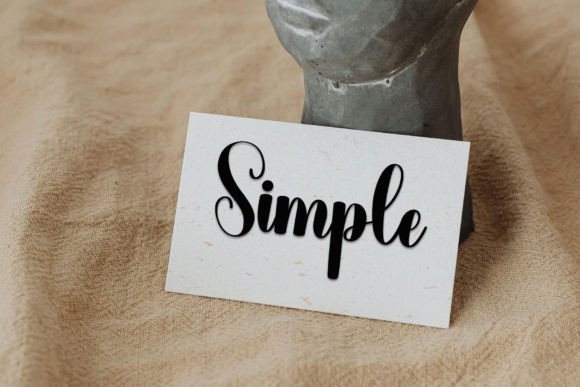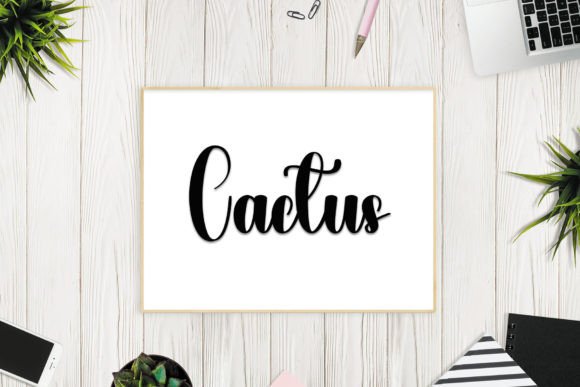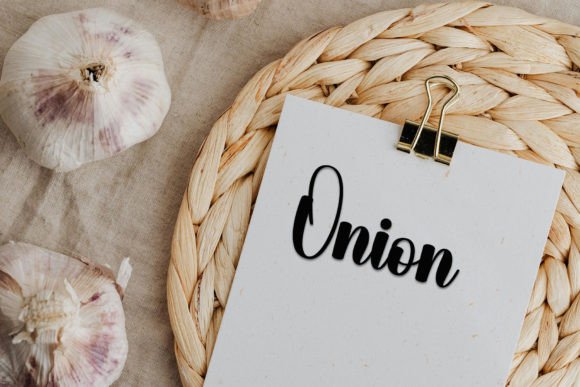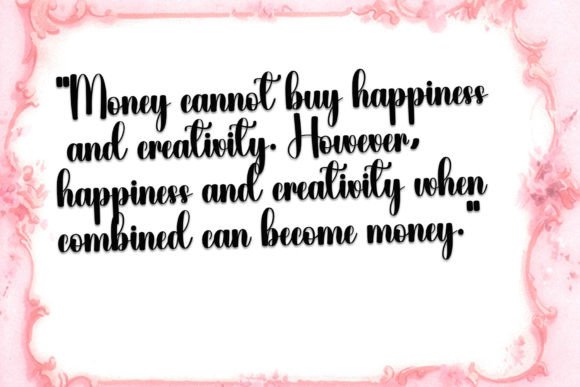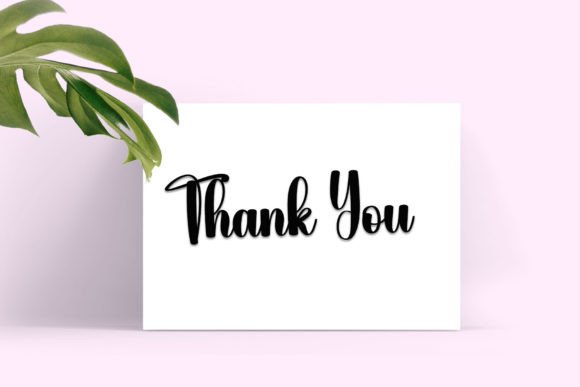
Introducing Already Font: Elevate Your Designs with Timeless Elegance
In the world of typography, few fonts manage to capture the essence of both modernity and classic sophistication. Already Font is one such remarkable typeface that seamlessly blends contemporary flair with the elegance of timeless calligraphy. If you’re a designer, crafter, or simply someone who appreciates the art of beautiful lettering, Already Font is sure to become an indispensable part of your creative arsenal.
The Inspiration Behind Already Font
Already Font draws its inspiration from the classic calligraphy of the past, yet it presents itself with a distinctly modern twist. This handwritten font is not just a collection of letters; it’s an expression of artistry and refinement. The creator of Already Font has meticulously crafted each character to exude a sense of impeccable form and fluidity, reminiscent of the finest calligraphic traditions.
Key Features of Already Font
- Trendy yet Timeless: Already Font strikes the perfect balance between being trendy and timeless. Its contemporary atmosphere makes it highly suitable for modern design projects, while its classic undertones ensure it remains relevant for years to come.
- Elegance and Class: The font’s design is characterized by elegant strokes and a sophisticated demeanor. It adds a touch of class to any project, making it ideal for designs that require a level of refinement.
- Versatility: Already Font is incredibly versatile and can be used across a wide range of design projects. Whether you’re working on a logo, a wedding invitation, a fashion brand’s marketing materials, or a personal craft project, this font can elevate your design to new heights.
- Legibility: Despite its elegant and artistic nature, Already Font does not compromise on legibility. It remains clear and readable, even at smaller sizes, making it practical for various applications.
Applications of Already Font
The versatility of Already Font means it can be used in numerous design contexts. Here are some of the most popular applications:
- Branding and Logos: For businesses looking to establish a sophisticated and elegant brand identity, Already Font can be a perfect choice.
- Wedding and Event Stationery: The font’s elegant nature makes it ideal for wedding invitations, save-the-date cards, and other event-related stationery.
- Fashion and Beauty: Fashion brands, beauty products, and lifestyle blogs can all benefit from the luxurious feel that Already Font provides.
- Packaging: For products that require a touch of elegance and sophistication, Already Font can be used to create stunning packaging designs.
- Personal Projects: Crafters and DIY enthusiasts can also use Already Font to add a professional and elegant touch to their handmade products and personal projects.
How to Use Already Font Effectively
To make the most of Already Font, consider the following tips:
- Pair it with Simplicity: Let the elegance of Already Font be the focal point by pairing it with simple backgrounds or design elements.
- Experiment with Colors: While the font itself is quite versatile, experimenting with different colors can help you find the perfect combination to match your brand or project’s aesthetic.
- Consider Font Sizes: Although Already Font remains legible at smaller sizes, varying font sizes can add depth and interest to your designs.
Already Font is more than just a typeface; it’s a tool for designers and crafters to imbue their projects with elegance, class, and a touch of timeless sophistication. Its blend of contemporary atmosphere and classic calligraphic inspiration makes it a unique addition to any creative toolkit. Whether you’re looking to elevate your professional designs or add a touch of refinement to your personal projects, Already Font is sure to exceed your expectations.